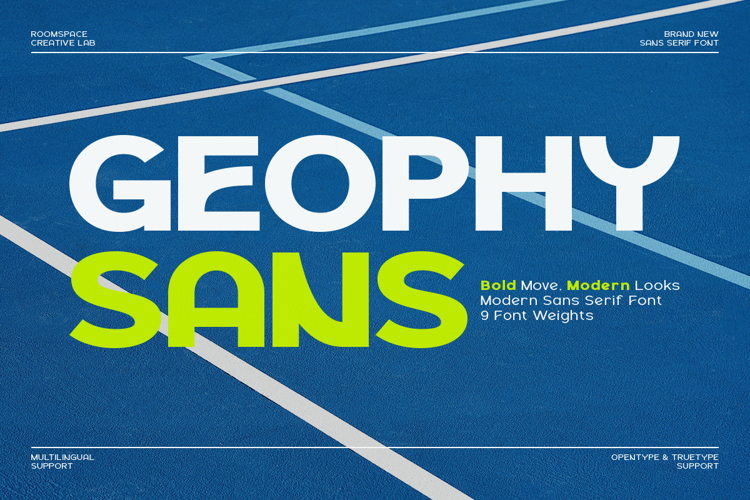
Geophy Font
Sporty, bold, and modern a sans-serif built for strong visual impact. Inspired by athletic courts and dynamic design languages, Geophy Sans communicates confidence, precision, and fast-paced energy. Best for branding, sports industry, apparel, UI design, urban campaigns.
Geophy Sans is a bold modern sans-serif font inspired by the geometry and movement of urban sports culture. Designed for high-impact visuals, it delivers strong readability with clean precision perfect for branding, posters, apparel, headlines, and dynamic layouts.